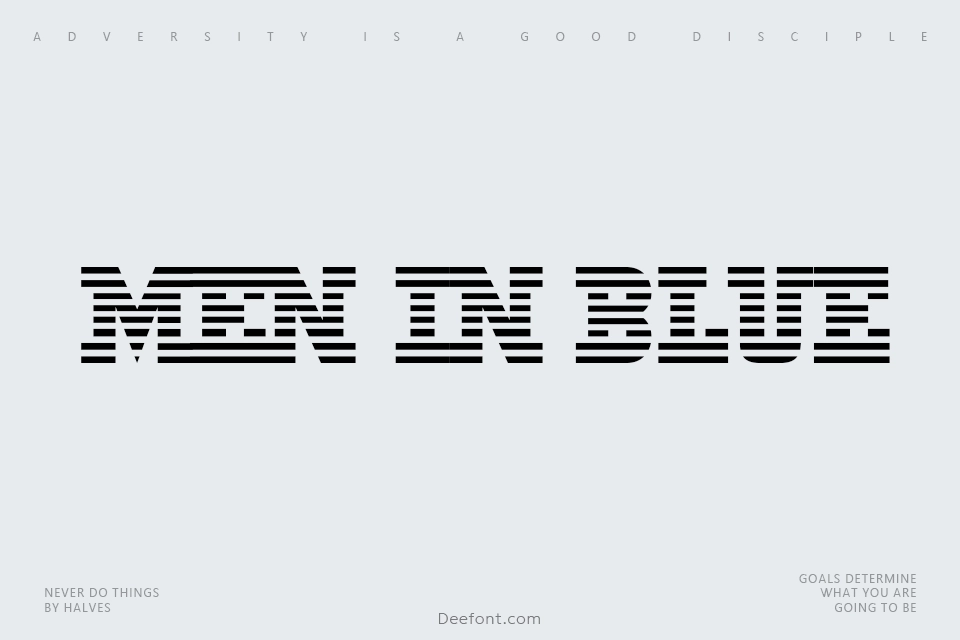
Men In Blue Font
Men In Blue is a distinctive striped font from Digital Empires, designed with a bold IBM-inspired aesthetic perfect for eye-catching display projects. This techno-styled typeface features sharp, geometric stripes and technical characteristics that make it ideal for modern design work, tech applications, and promotional materials. Originally created in 1998, Men In Blue offers a unique blend of retro-futuristic appeal and contemporary versatility, delivering strong visual impact for branding, posters, and digital interfaces.